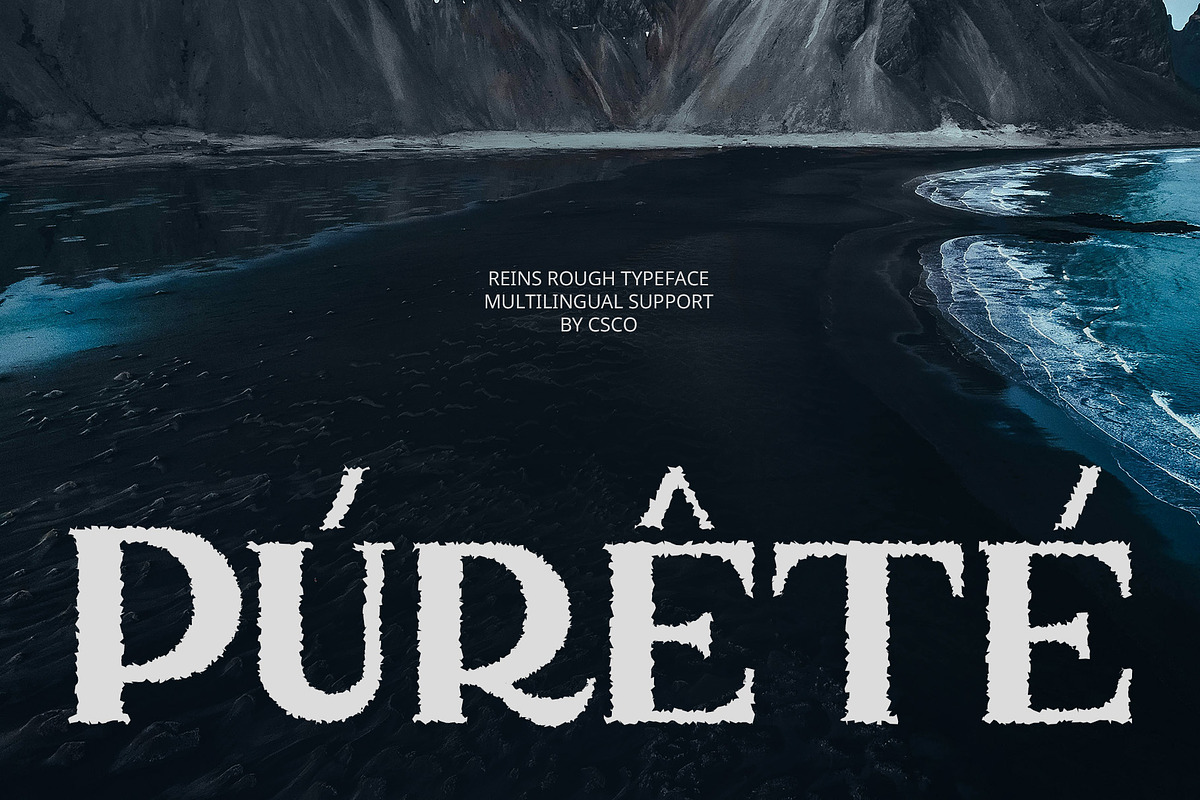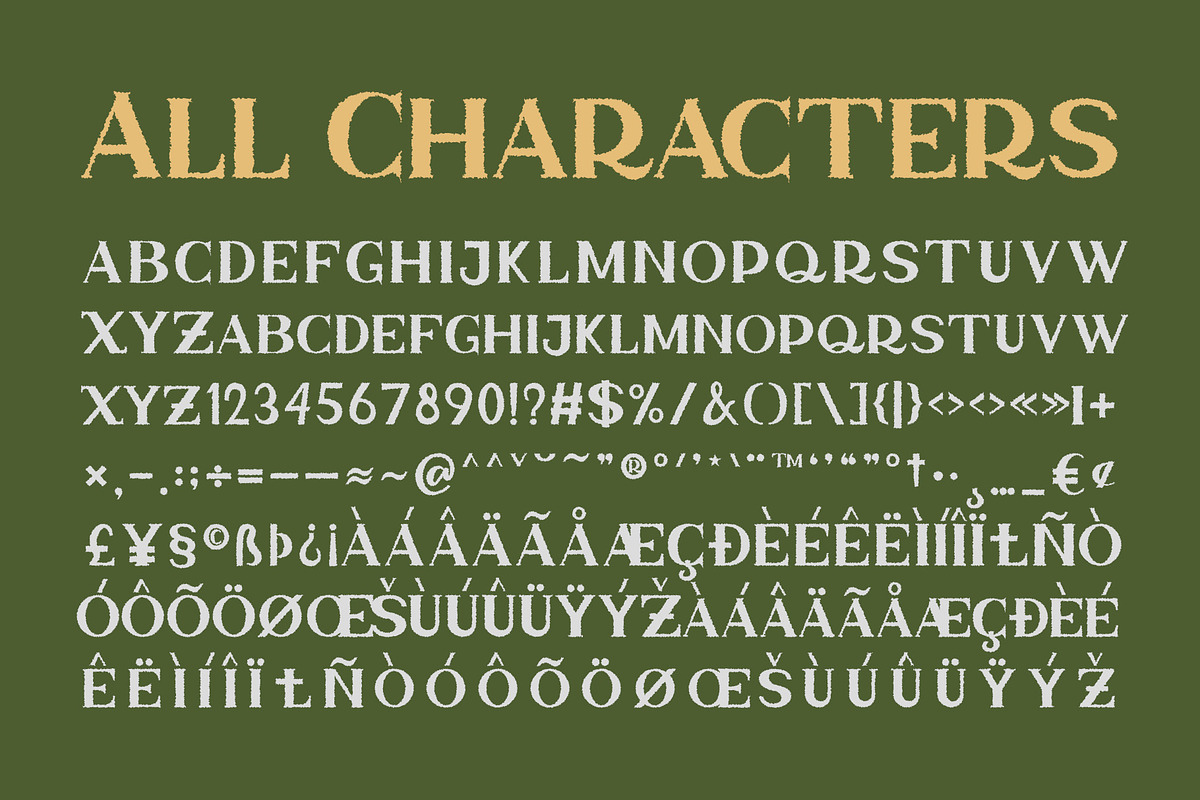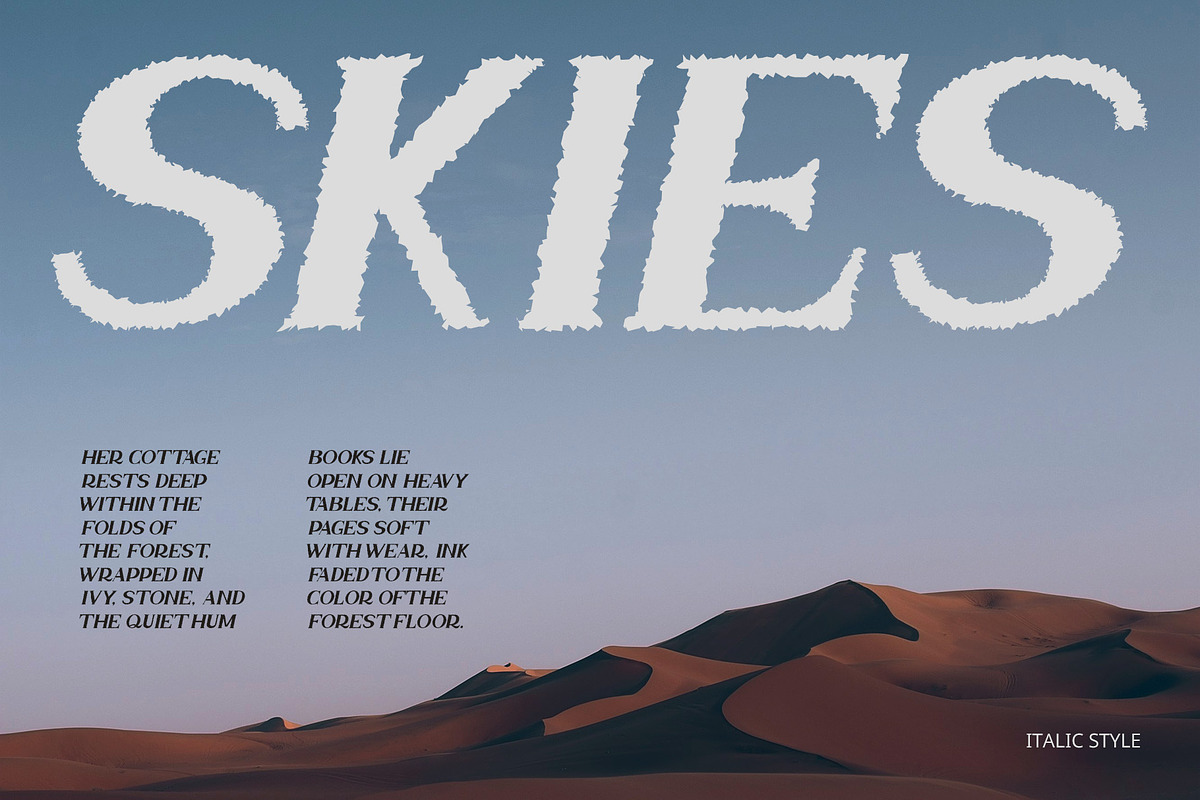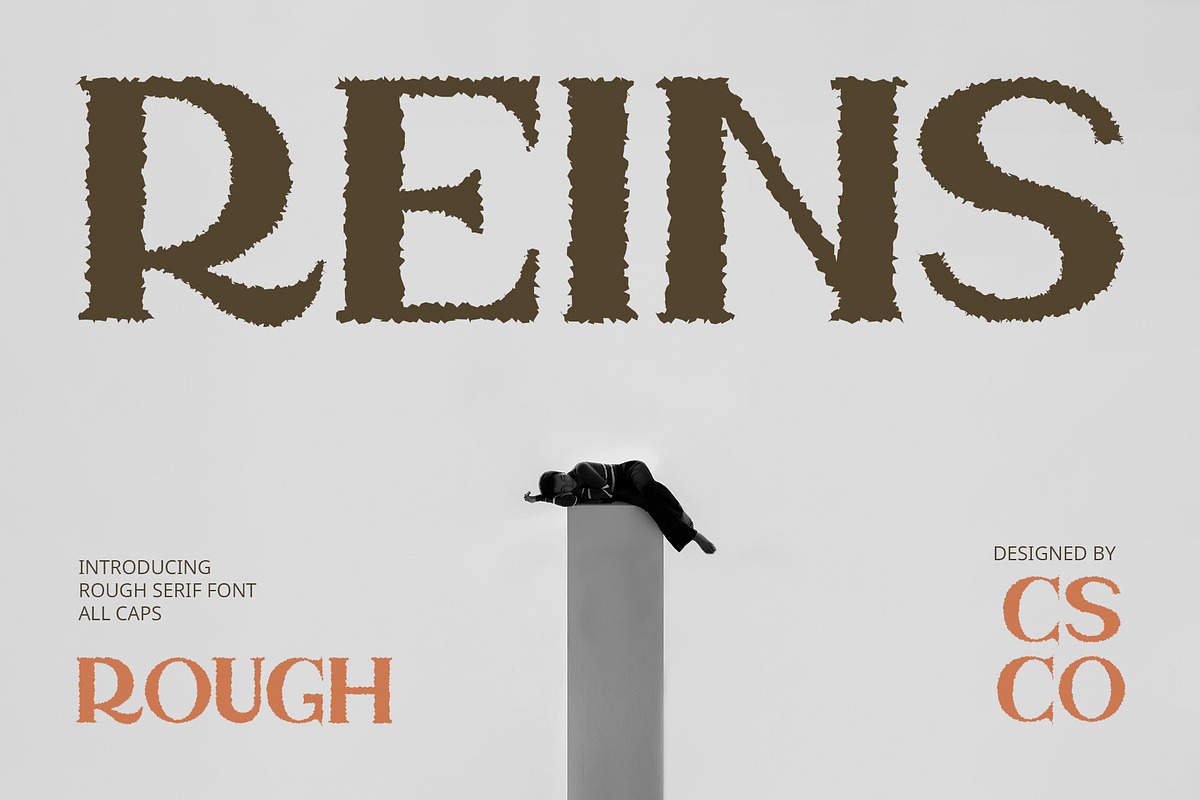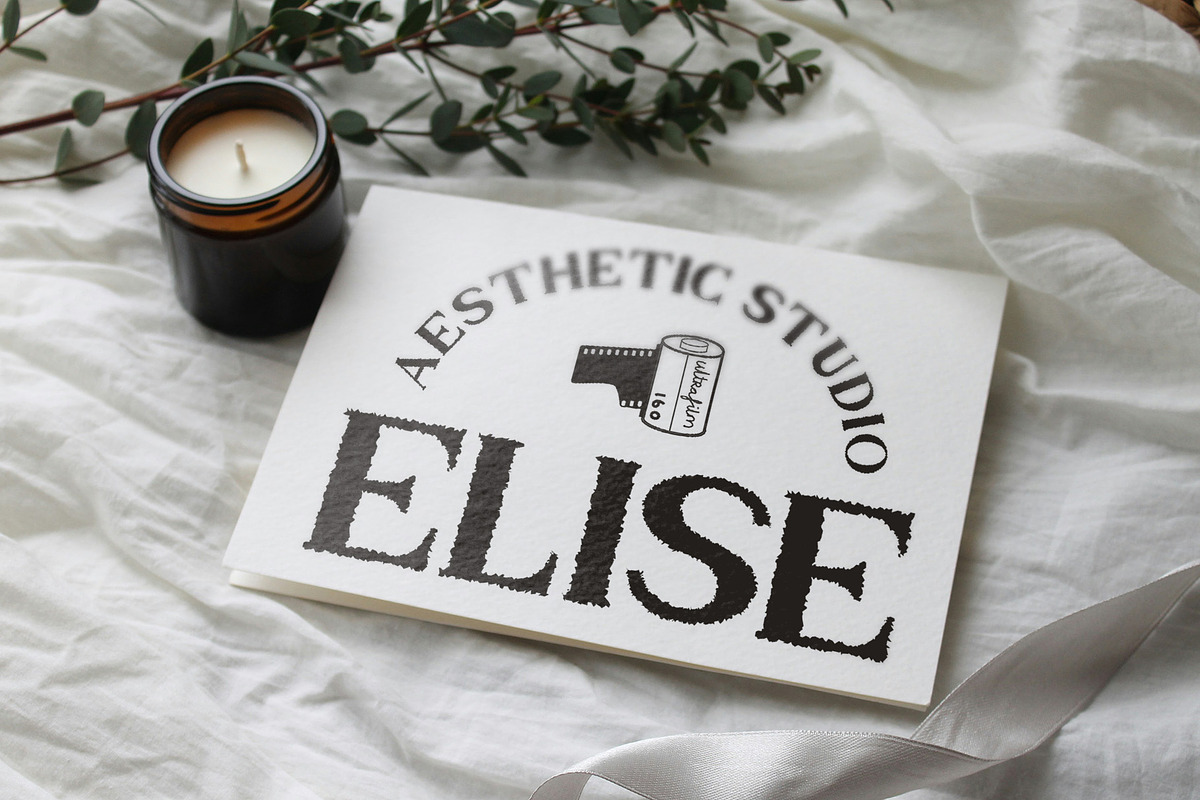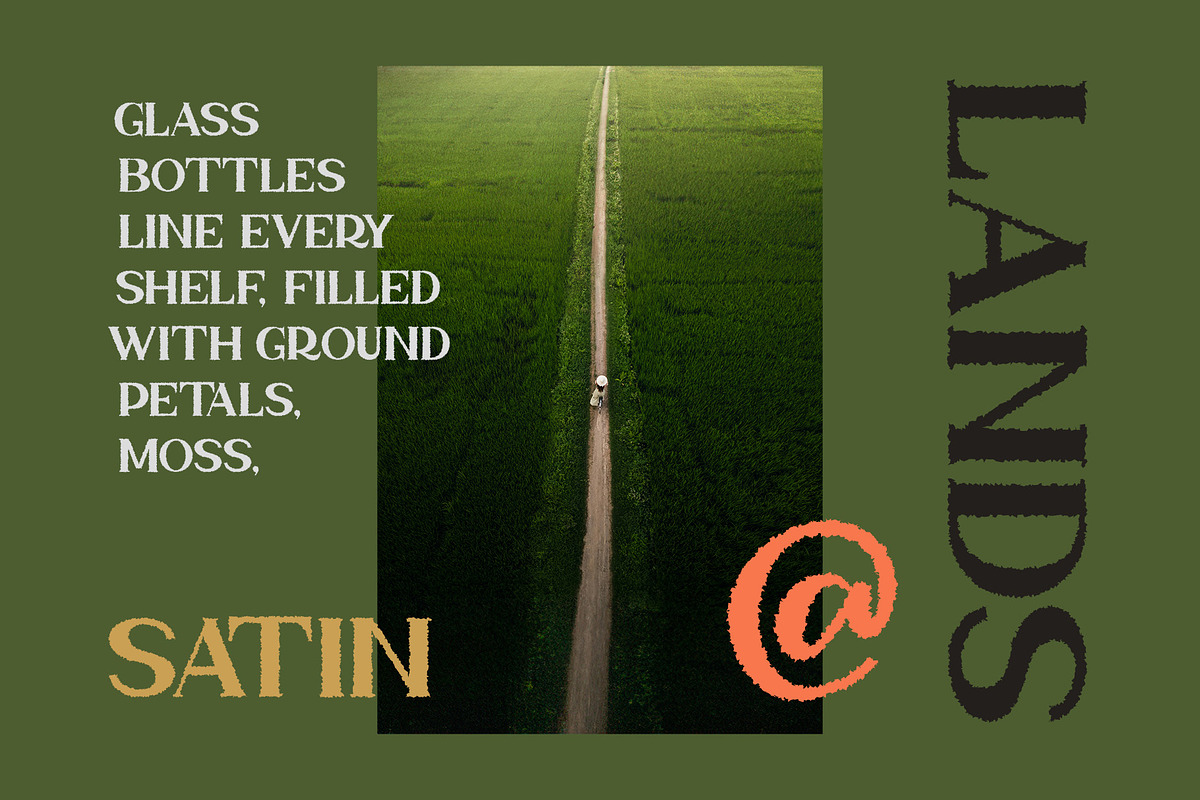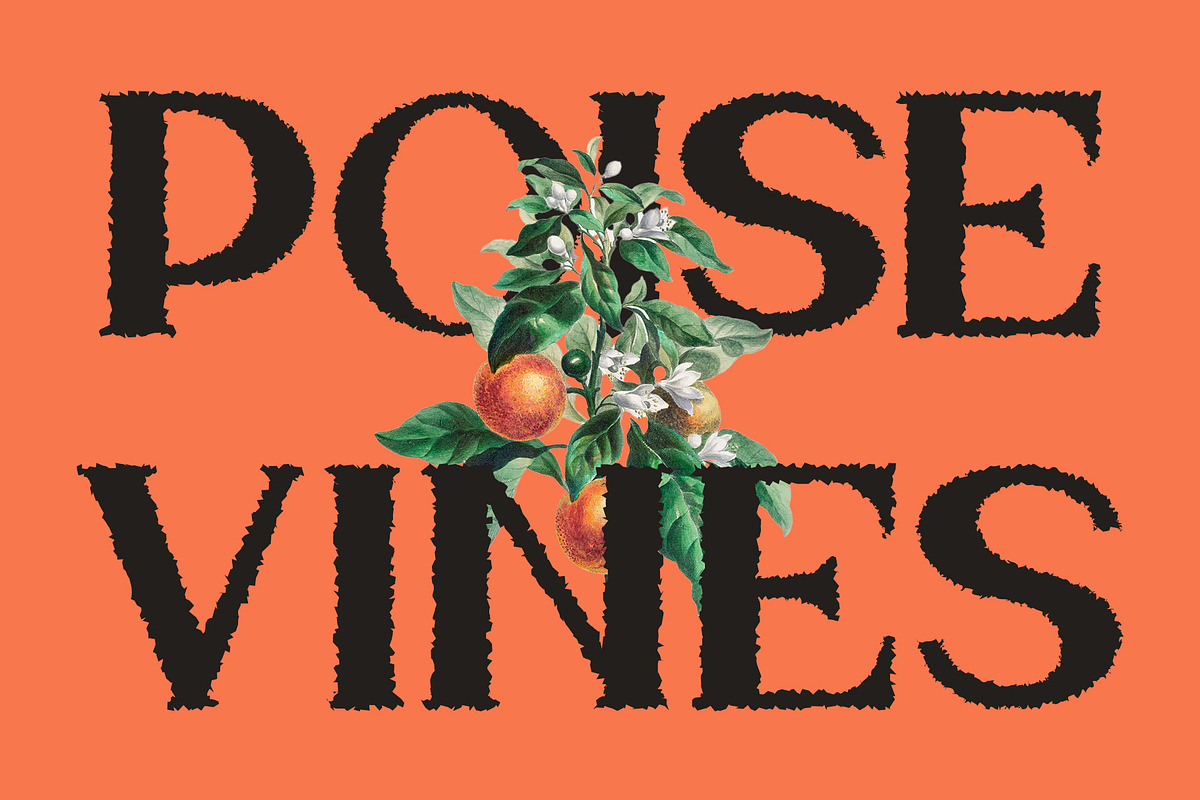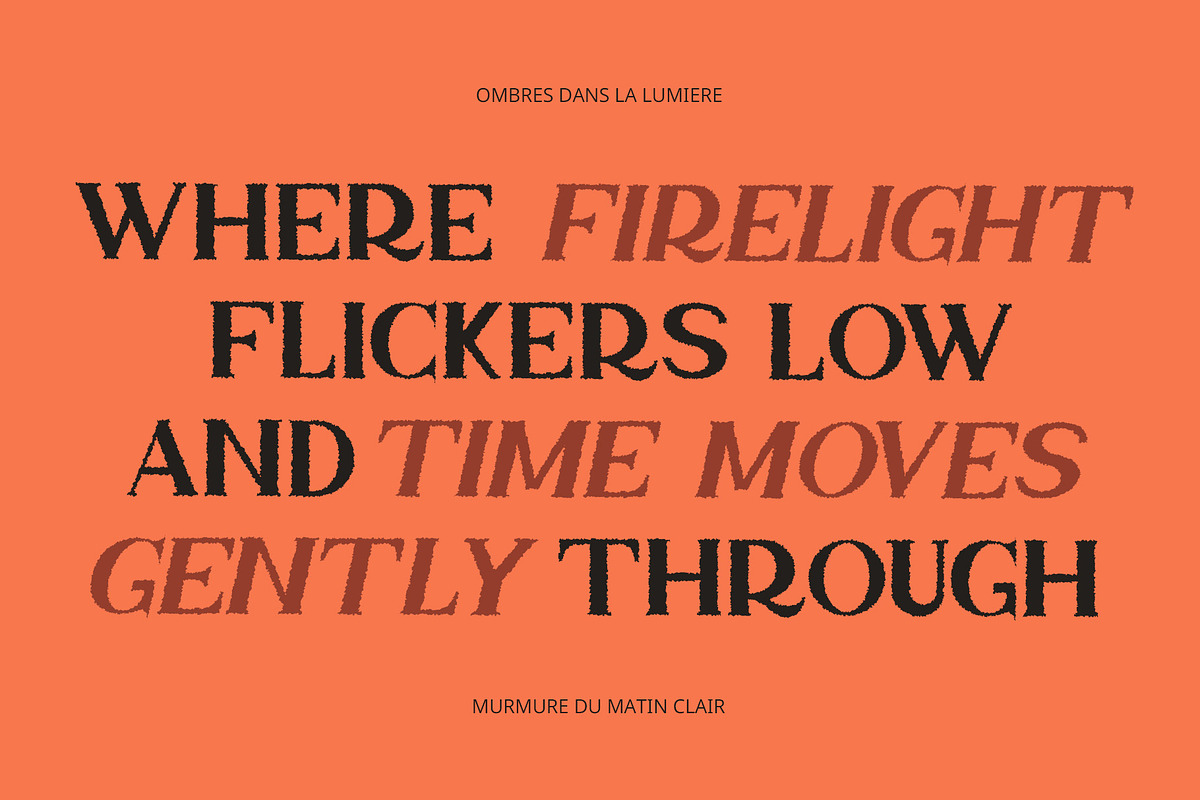
Reins Rough
Reins Rough Font – Graceful Modernism with Artistic Texture
Contemporary Elegance with Timeless Form Reins Rough is a modern serif font defined by clean lines, refined curves, and balanced proportions. Its stylish letterforms exude elegance and clarity, bringing a polished, professional presence to any design. Ideal for visual projects that aim to appear luxurious, graceful, and thoughtfully crafted.
Refined Serifs for a Sophisticated Look Delicate serif details add a layer of sophistication and visual harmony, enhancing the font’s upscale appearance. Reins Rough captures the balance between classic beauty and contemporary minimalism, making it perfect for fashion branding, editorial layouts, and elegant packaging.
Rough Texture for Organic Depth Contrasting its smooth structure is a carefully applied rough texture that brings a handcrafted, vintage flair. This subtle grit introduces a tactile, artistic quality—adding visual richness and character without compromising its clean, high-end appeal.
Perfect for Bold and Beautiful Visuals Reins Rough is a versatile choice for designers who want to merge structure with soul. Its combination of sharp professionalism and artistic imperfection makes it a standout in luxury branding, wedding stationery, magazine covers, and creative visuals that require a bold yet graceful typographic voice. Whether you’re aiming for high-fashion, romantic elegance, or editorial drama, Reins Rough brings modern refinement with a textured, expressive finish.